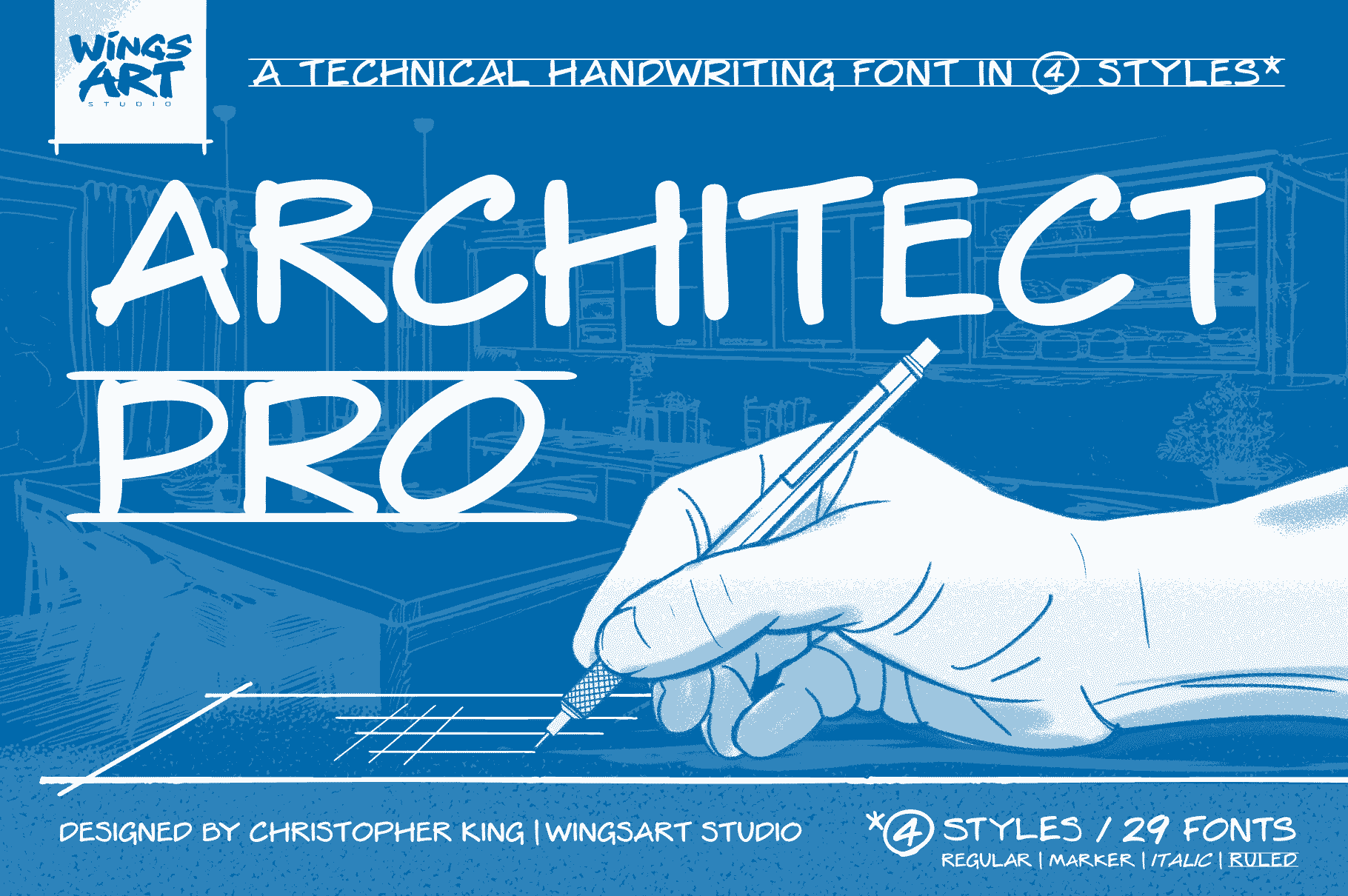
Understanding Architectural Handwriting: The Evolution and Importance of Architectural-Style Lettering In the field of architecture, clarity and precision are paramount. This is especially true when it comes to architectural drawings, where every det...